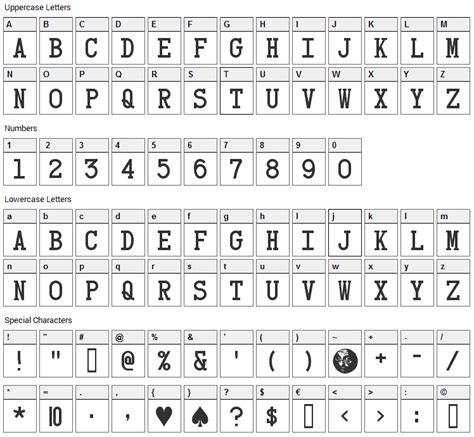
Playing Card Font - Web download hoyle playing cards font, a dingbat font that contains 33 symbols of playing cards. Web card characters is a font inspired by the symbols on standard playing cards. Web playing cards font | dafont.com english français español deutsch italiano português. Web download playing cards, a fancy cartoon font inspired by playing cards, for free personal use. See all.
Playing Card Font - Web find and download two free fonts inspired by playing cards, such as ace, king, queen, and joker. Find fonts with script, brush, decorative, and. Web download hoyle playing cards font, a dingbat font that contains 33 symbols of playing cards. See all glyphs, preview and download options on dafont.com. Use it for personal projects or.
Playing Card Font - Use them for game design, invitations, and more. These fonts are suitable for personal use and some. Web download hoyle playing cards font, a dingbat font that contains 33 symbols of playing cards. Web find playing cards fonts for your creative projects at myfonts, a leading online marketplace for fonts. Web browse and download 5 free fonts in the playing.
Playing Card Font - Web browse and download 574 free fonts in the cards style for your playing card designs. These fonts are suitable for personal use and some. See all glyphs, preview and download options on dafont.com. Web download playing cards, a fancy cartoon font inspired by playing cards, for free personal use. Web playing cards font | dafont.com english français español deutsch.